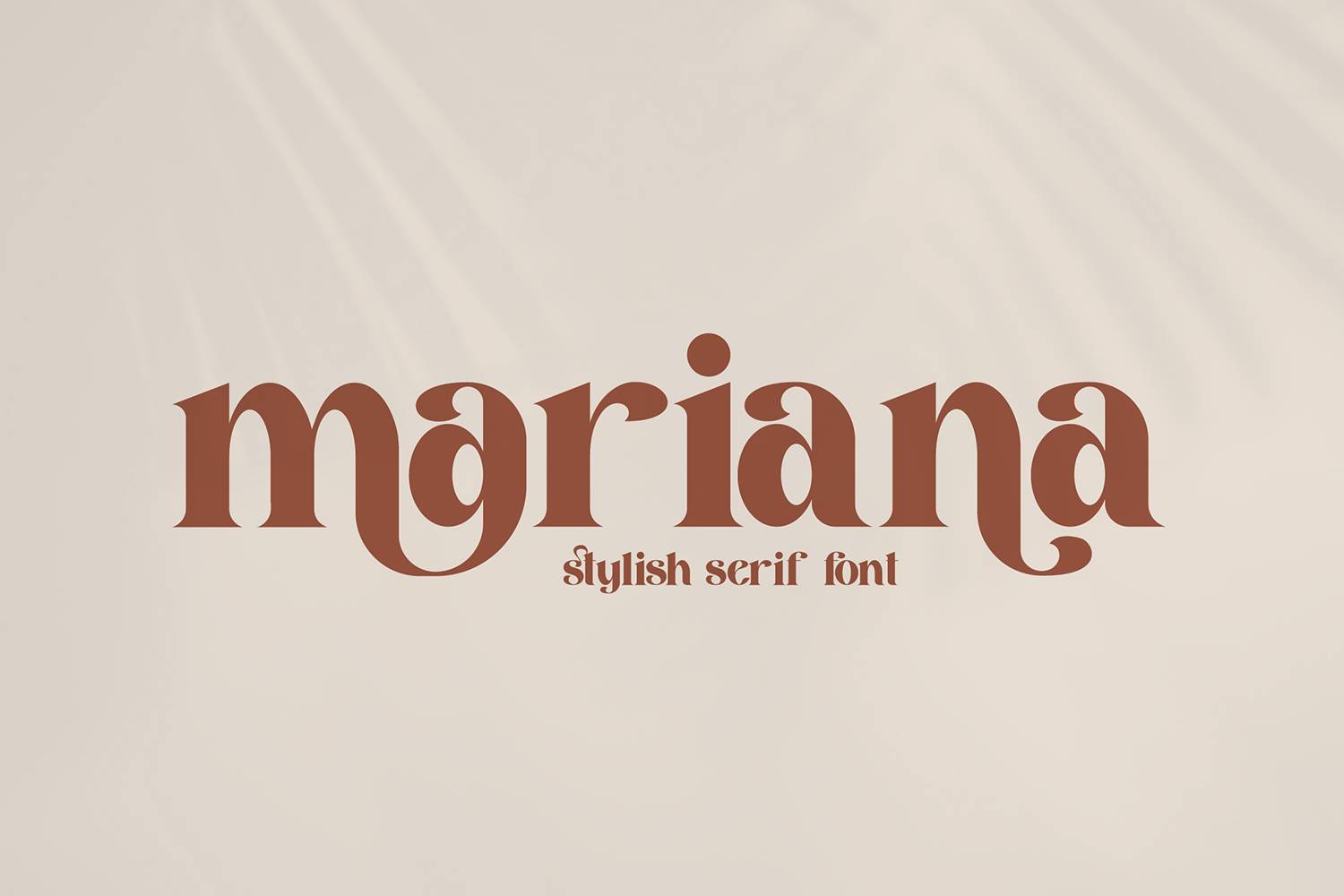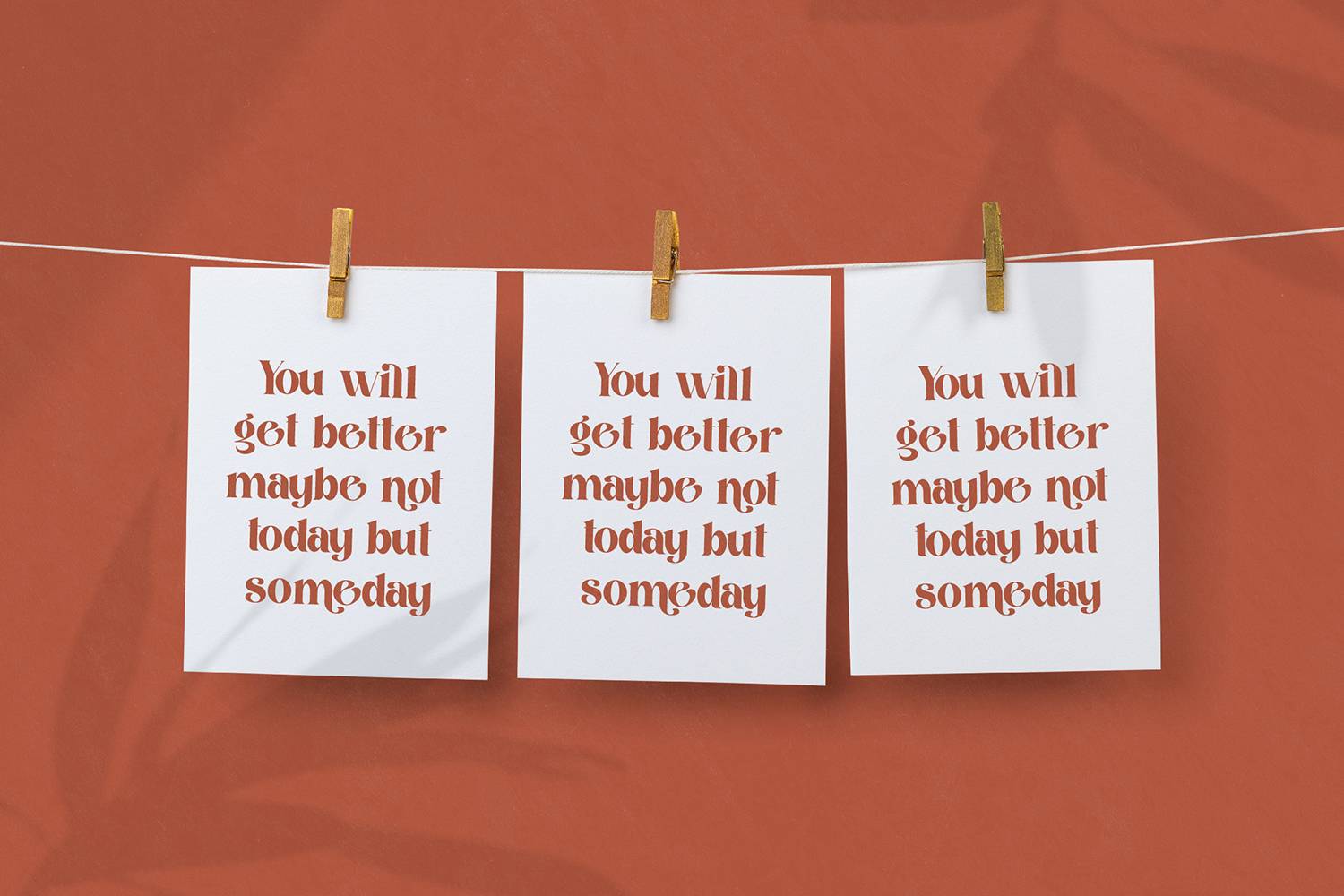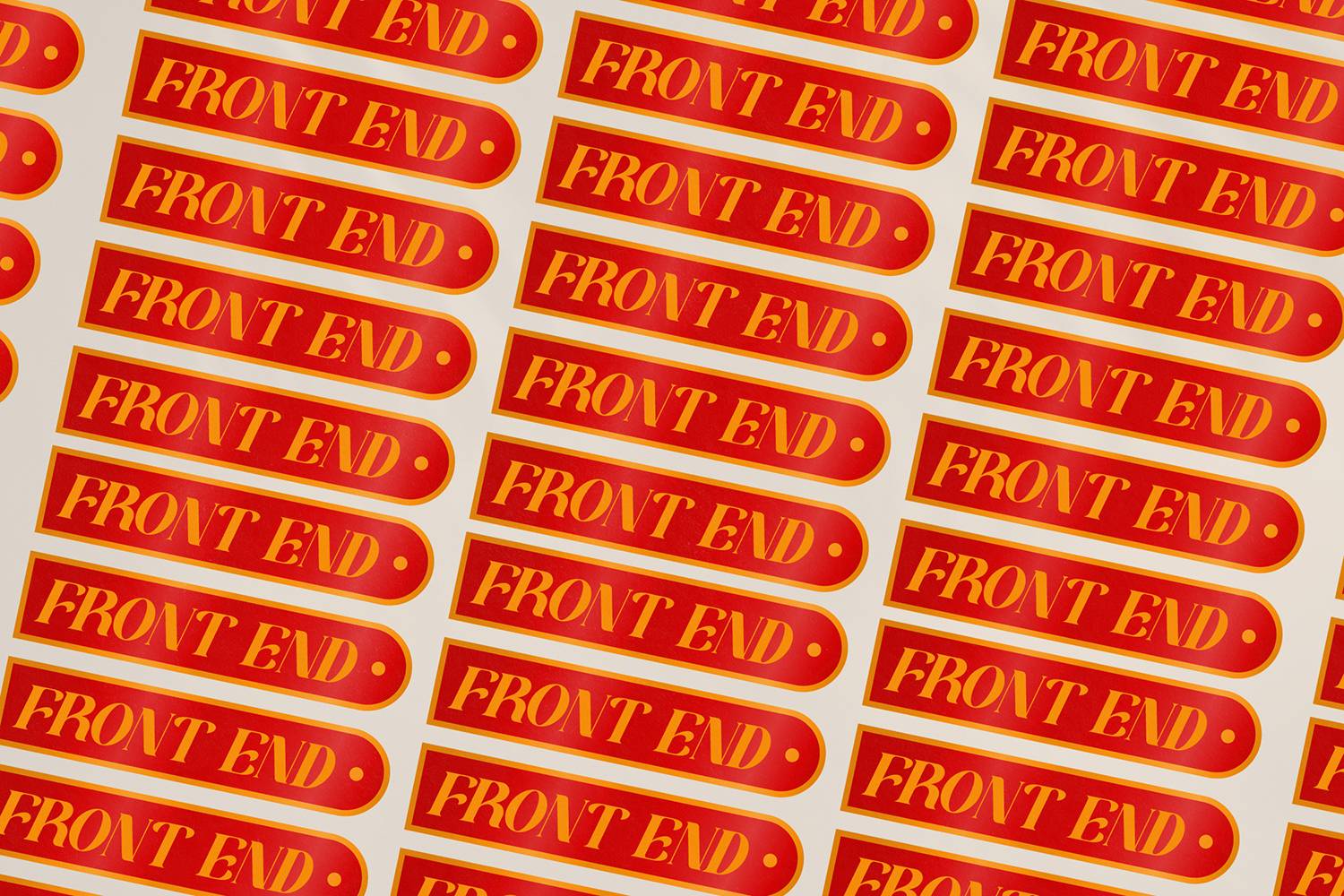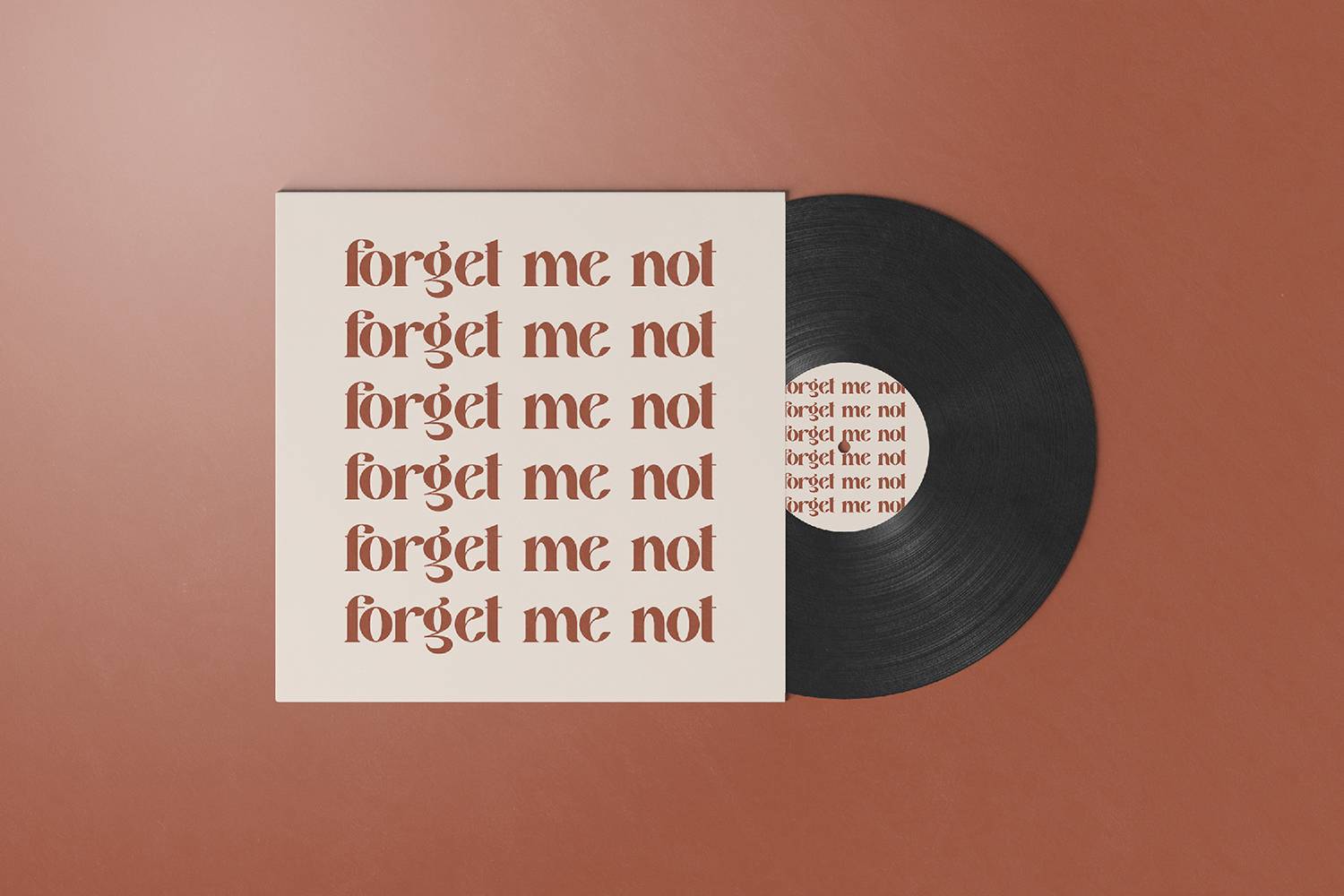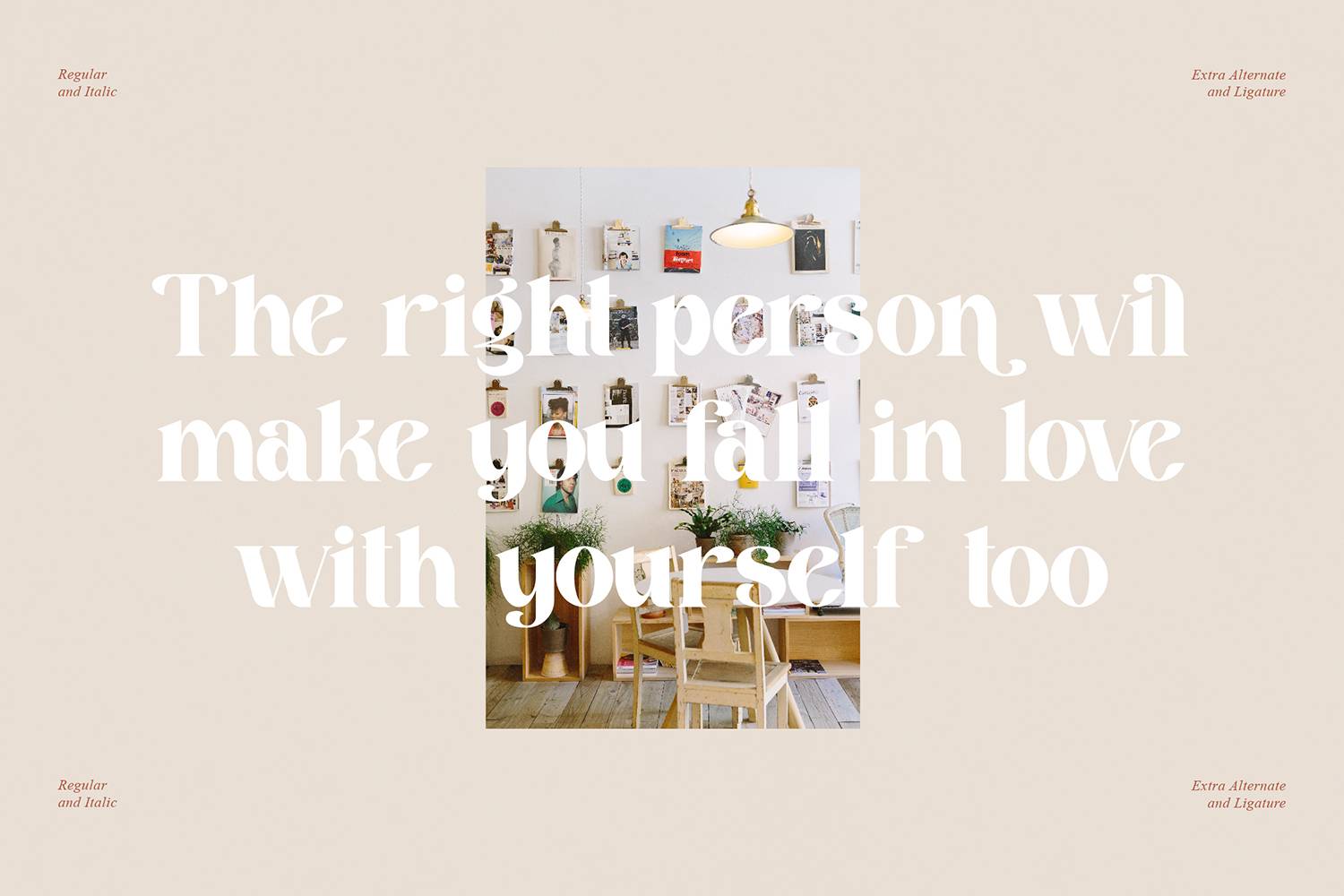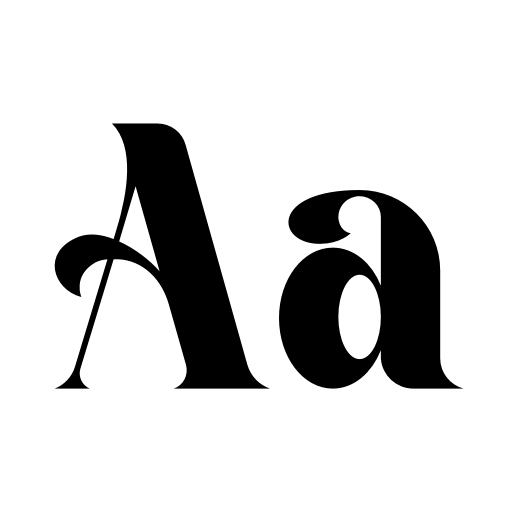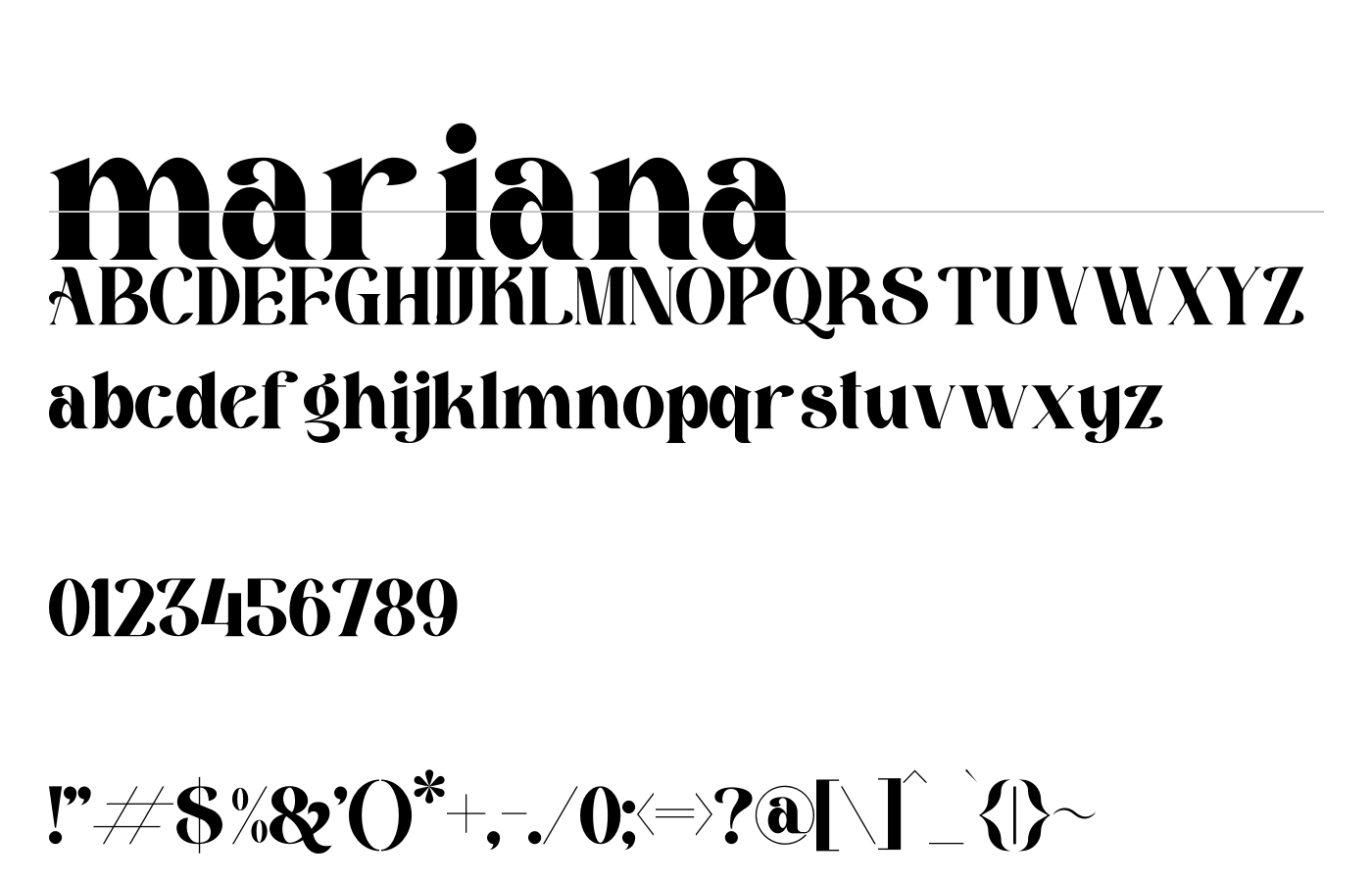
Mariana is a bold, high-contrast serif font with dramatic thick and thin strokes that give it an elegant, vintage-inspired feel. Its condensed width and distinctively sharp, bracketed serifs create a refined yet bold personality, making it ideal for luxurious branding, stylish editorial headlines, and sophisticated packaging. This font’s unique letterforms and strong presence work beautifully in designs that need a touch of classic elegance with a modern twist.
Mariana Font
About Mariana Font